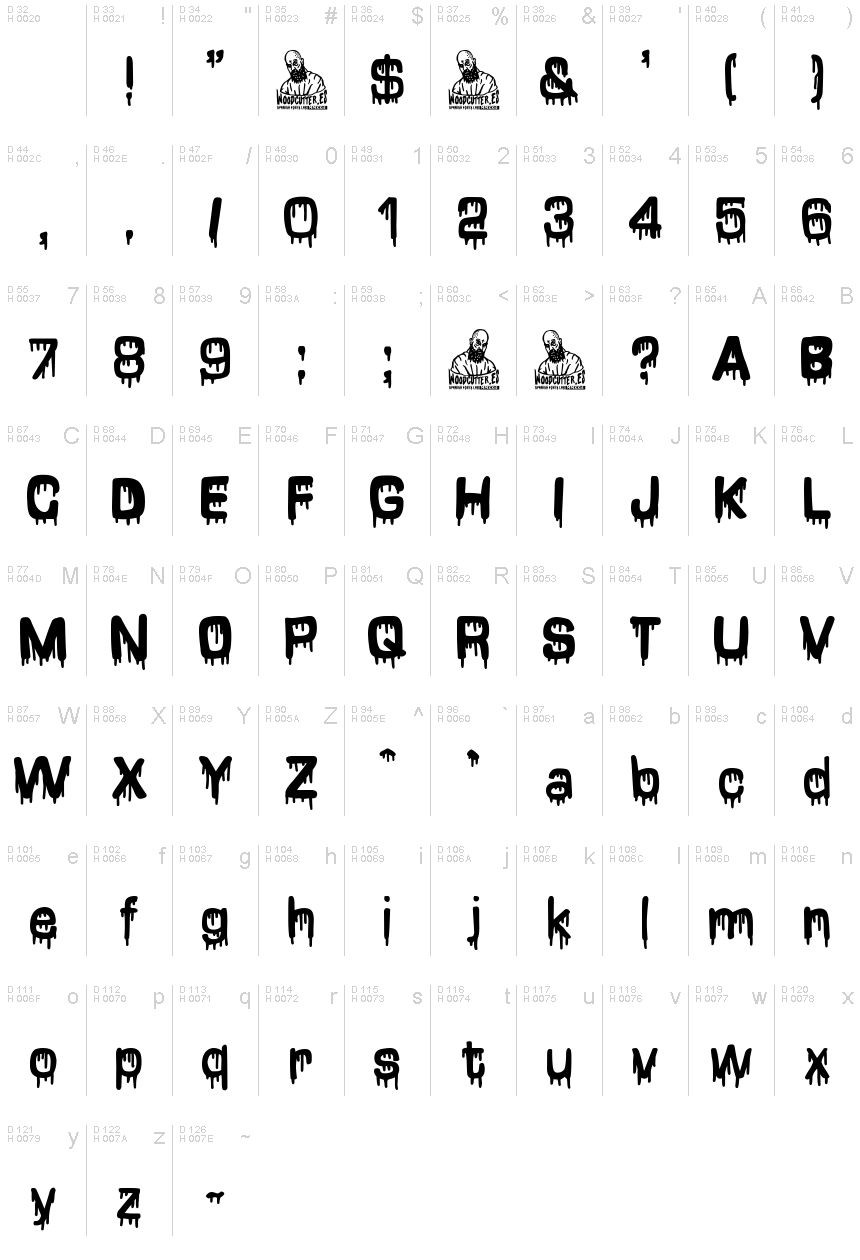
Eurotrash Style
Eurotrash Style by Woodcutter emerges as a font with a chilling edge, perfect for crafting messages that stick with you long after the first glance. Its characters ooze with an eerie charm, reminiscent of horror film titles and spooky season aesthetics. The playful yet unsettling twists in each letter evoke the feeling of being watched from the shadows, making it ideal for Halloween posters, edgy branding projects, or any design aiming to leave a haunting impression.
The boldness of Eurotrash Style lends it an undeniable presence that commands attention. It's not just a typeface; it's a statement piece for designs that dare to disturb and delight. Whether employed in gaming interfaces, event invitations, or avant-garde fashion labels, this font is sure to carve out its own niche in the realm of display typography where fear meets fun.